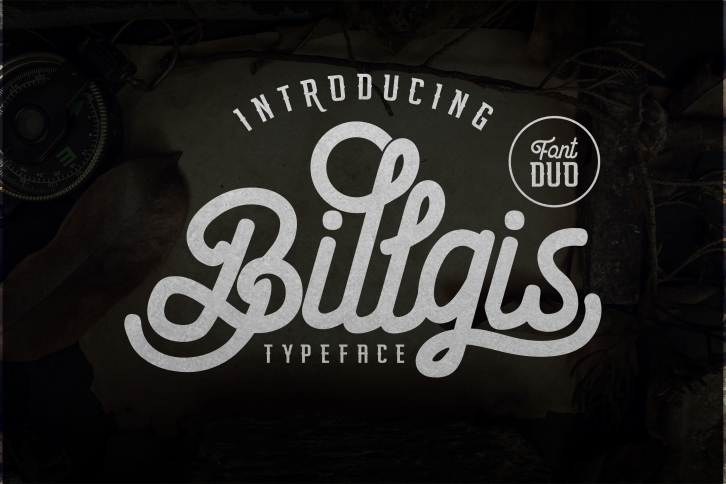
Billgis Duo is a gorgeous font that was realeased on October 23, 2018. The font can be used in many style contexts and design environments. Perfect for invitations, magazines, websites, logos, and more! It was designed by Banyumili Studio and the file size is 10.82 MB. Thanks for checking out this font!